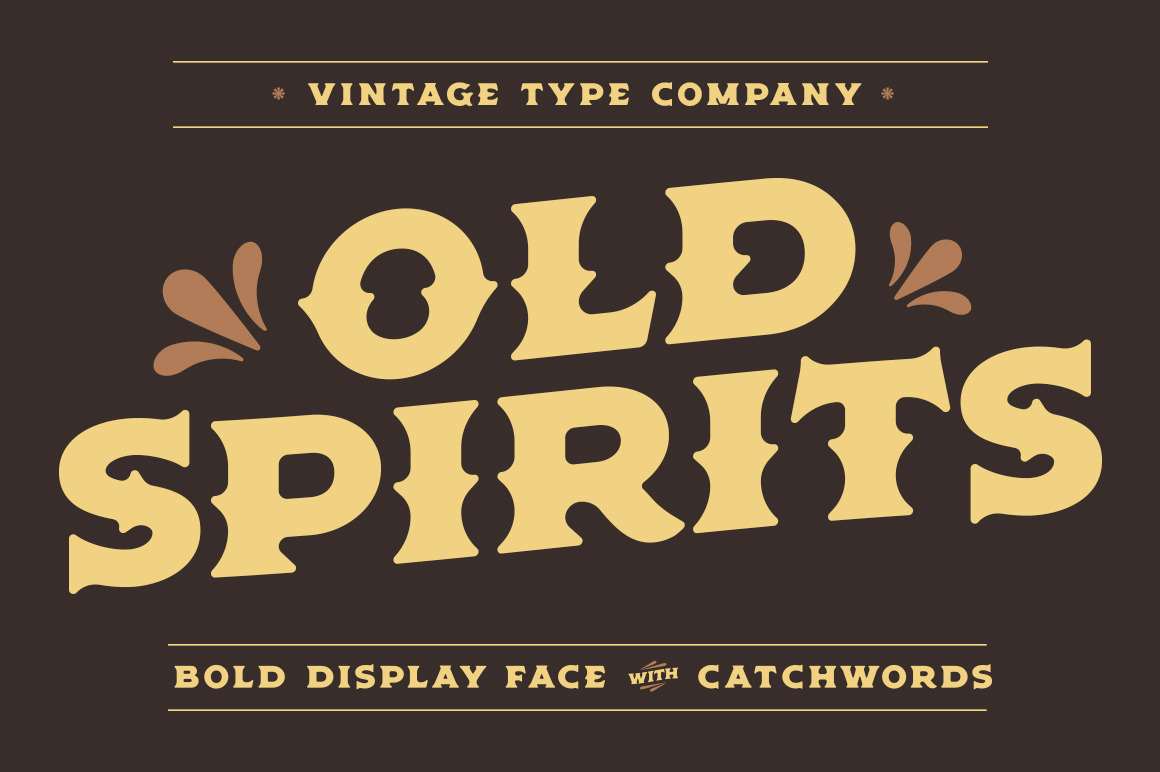
Old Spirits Display Font
Old Spirits is a bold, Americana-inspired display face. It comes equipped with an all upper-case glyph set, including a strong uppercase with spurs, and clean lowercase. You also get 2 BONUS styles with two varying degrees of an ink/stamp effect for an authentic, aged, type aesthetic.
Activate the catchwords by placing a lowercase 'c' before the capped word (e.g. cWITH), and enjoy full language support for the following languages: